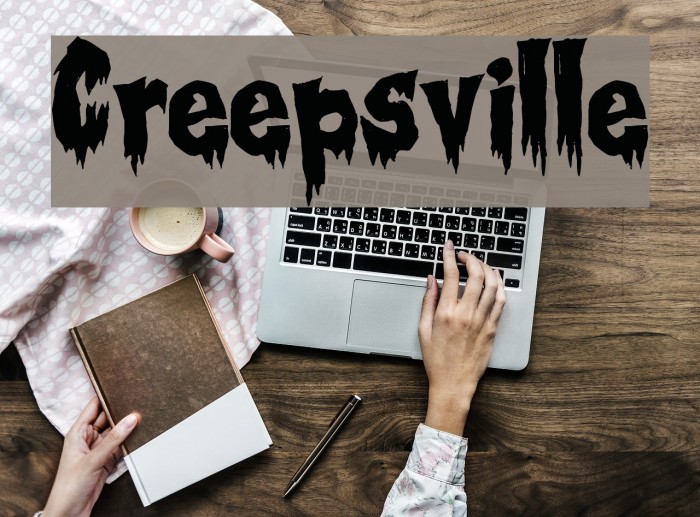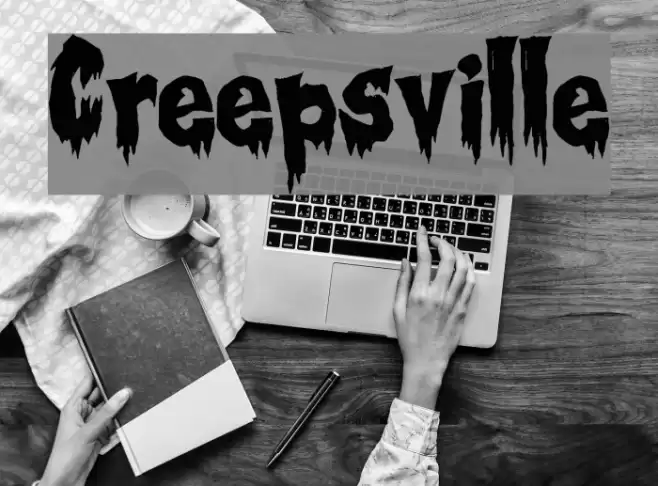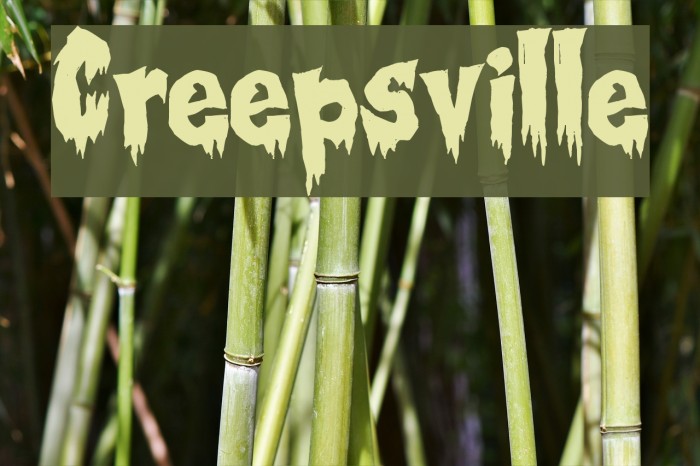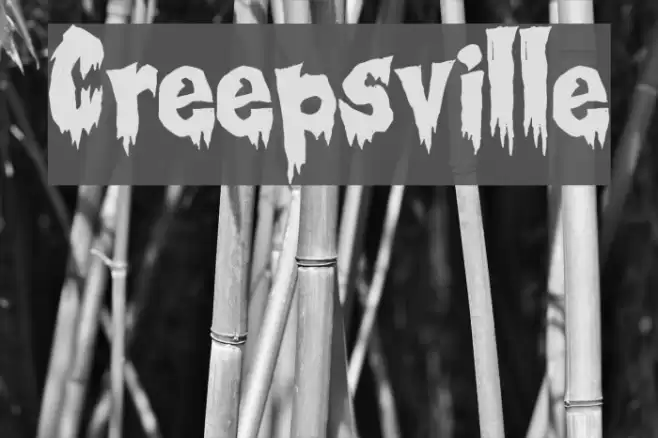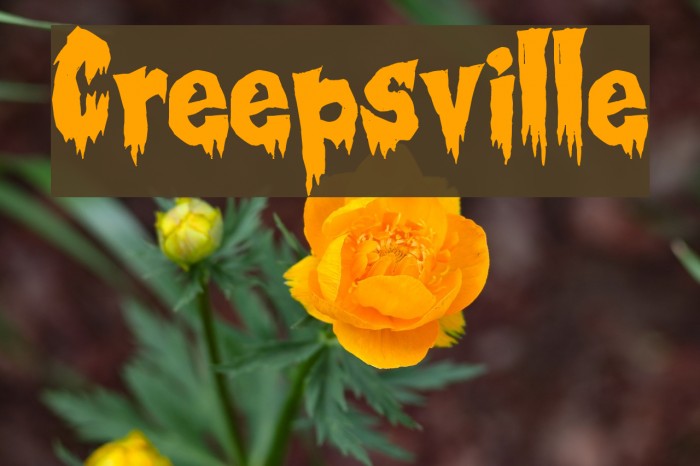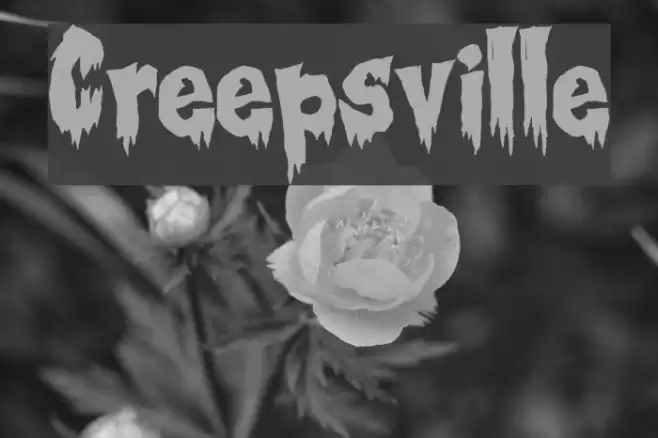
Creepsville Font
Creepsville Description
This font exudes a spooky and eerie vibe, perfect for Halloween-themed projects. The letters appear as if they are dripping or melting, with jagged edges and irregular shapes that give a sense of horror and mystery. The uppercase and lowercase characters maintain a consistent style, enhancing the unsettling aesthetic. The numbers and special characters follow the same design, ensuring uniformity across all text elements. Its unique and bold appearance makes it stand out, capturing attention with its dramatic flair.
| Proposed Projects | Ideal for Halloween invitations, horror movie posters, haunted house flyers, and spooky-themed merchandise. |